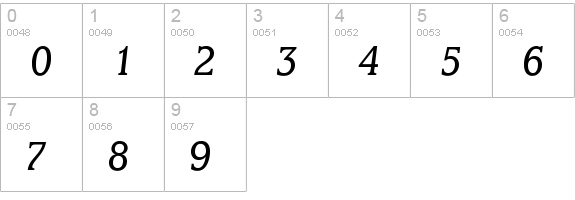
Marbrook Book Italic Font Details
Marbrook Book Italic is a comfortable, highly readable, italic variant in the Marbrook typeface family \xE2\x80\x94 well suited to long-form body text, articles, and editorial content.
Marbrook Book Italic font is a stunning typeface that exudes elegance and sophistication. Its sleek and graceful letterforms are carefully crafted to create a sense of refined beauty. This font is perfect for those who seek a touch of timeless charm in their designs. Whether it's for a book cover, wedding invitation, or a logo, Marbrook Book Italic font will effortlessly elevate any project to new heights. The italicized version of Marbrook Book adds a touch of dynamism and flair to the already exquisite design. It creates a sense of movement and elegance, making it ideal for conveying a sense of sophistication and creativity. One of the most remarkable aspects of Marbrook Book Italic font is that it is available for free download at FontsMarket.com. This means that you can enjoy its exceptional beauty and versatility without any cost. With its wide range of characters and ligatures, Marbrook Book Italic font offers endless possibilities for creative expression. Its smooth curves and balanced proportions make it easy to read, ensuring that your message is delivered with clarity and style. Whether you're a graphic designer, typographer, or simply someone who appreciates the beauty of typography, Marbrook Book Italic font is a must-have in your font library. Its timeless elegance and free availability make it an irresistible choice for any project. So why wait? Download Marbrook Book Italic font today and let it bring a touch of sophistication to your designs.